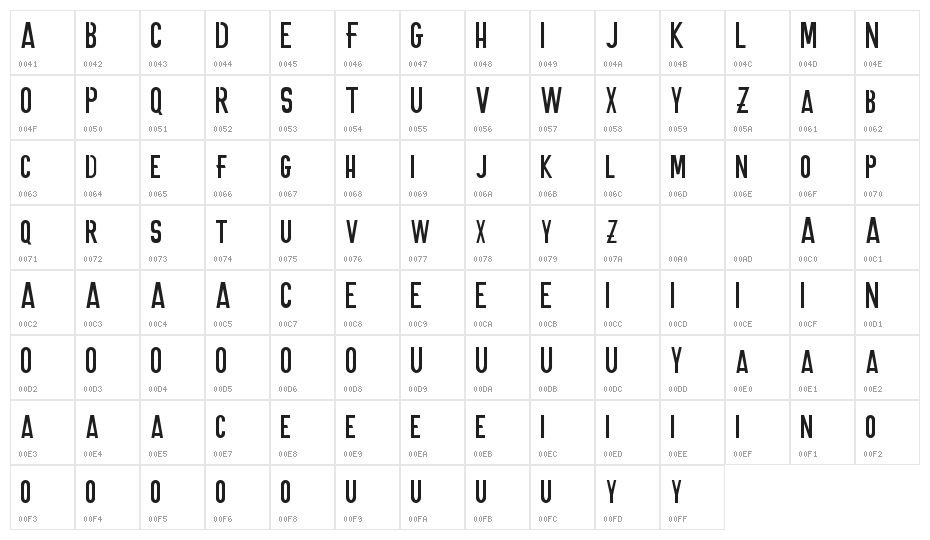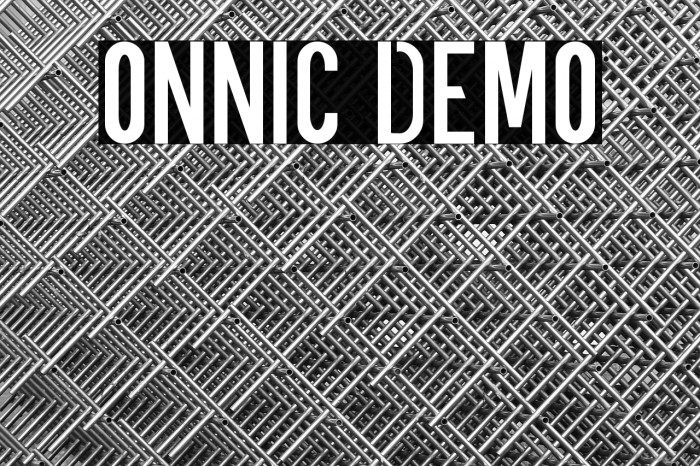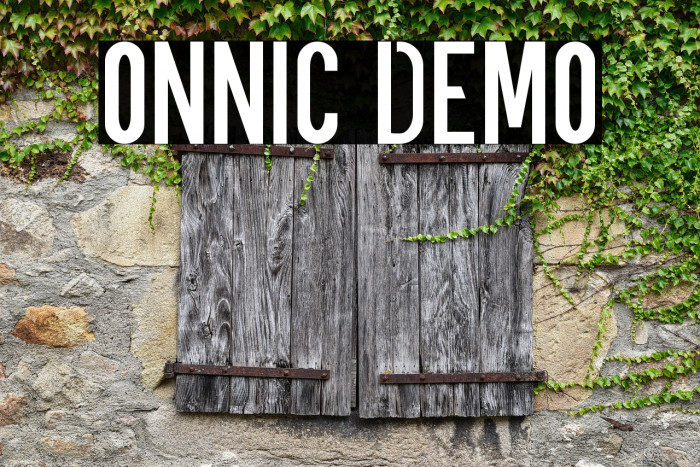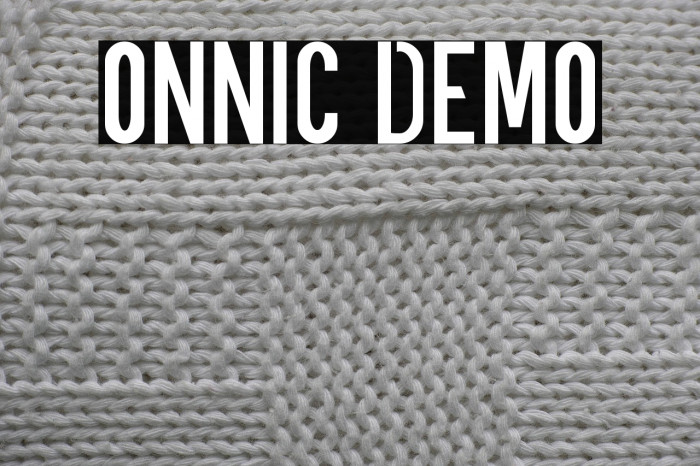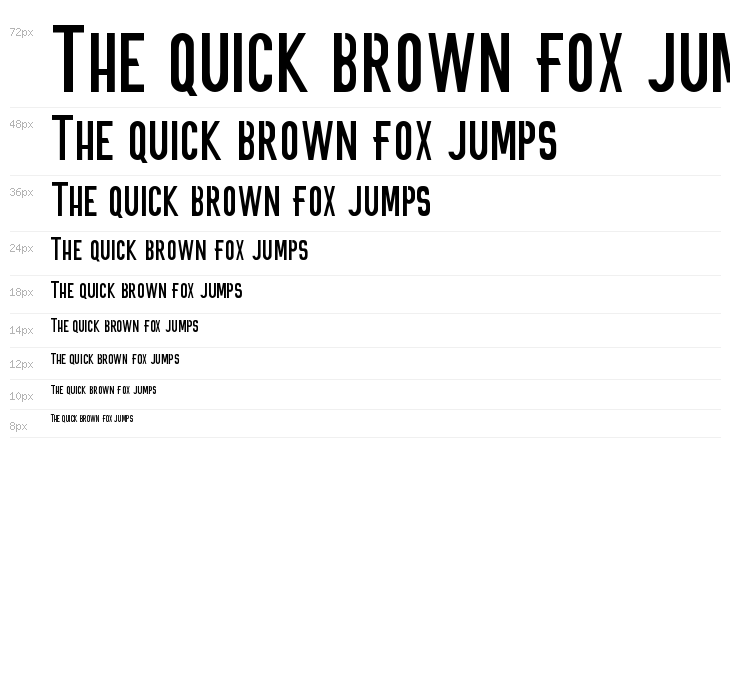
ONNIC DEMO Font
ONNIC DEMO Description
This font features a bold and assertive design with tall, narrow characters that convey a sense of strength and modernity. The uppercase letters are particularly striking, with consistent stroke widths that create a uniform appearance. The font's clean lines and geometric shapes make it highly legible, even at smaller sizes. It maintains a contemporary feel, suitable for a variety of design applications. The characters are tightly spaced, enhancing the compact and impactful nature of the typeface. Its simplicity and clarity make it versatile for both digital and print media.
| Proposed Projects | Ideal for branding, headlines, posters, and digital media where a strong, modern presence is desired. |